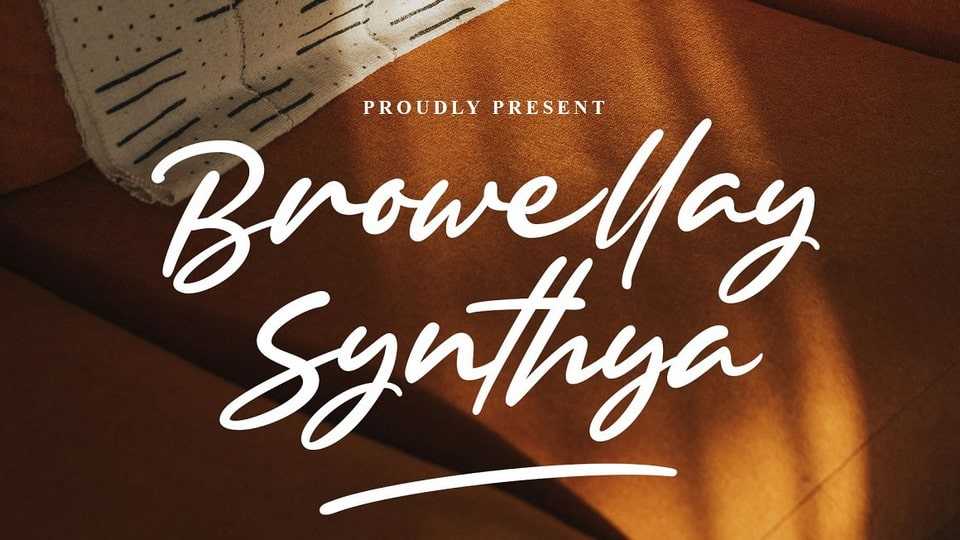
Download Browellay Synthya font, an expressive, classy, and elegant signature font that will bring joy to your designs! Designed with bolder strokes to make it stand out as a display font.